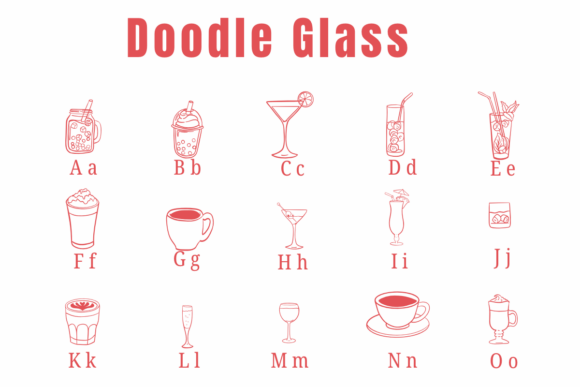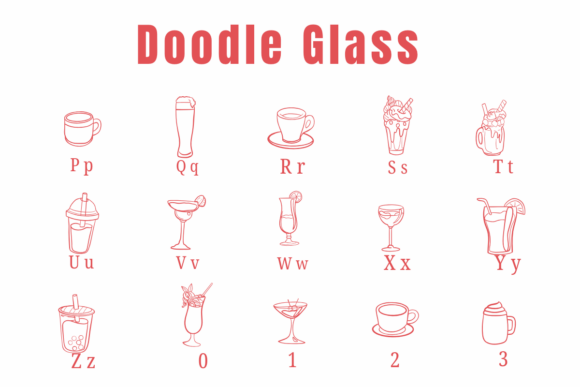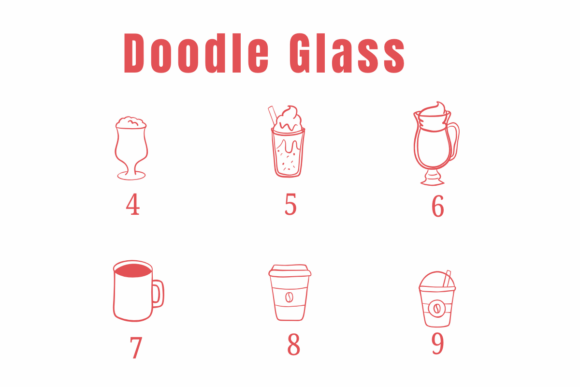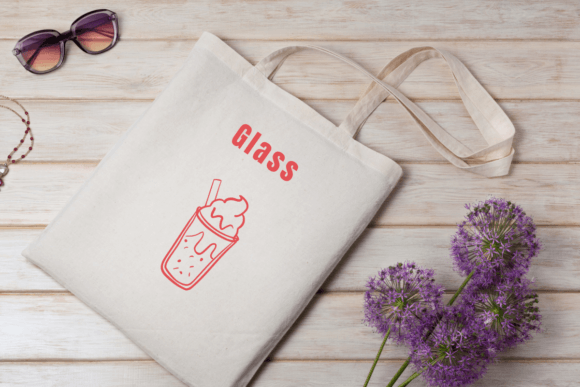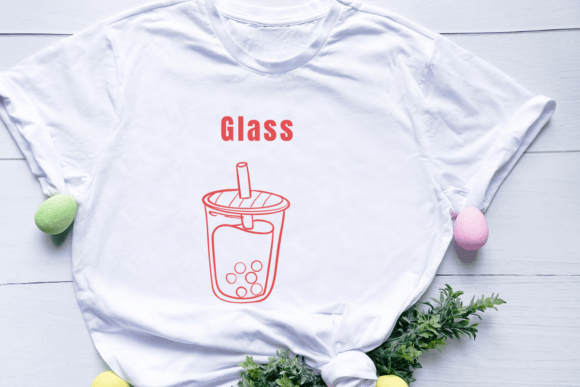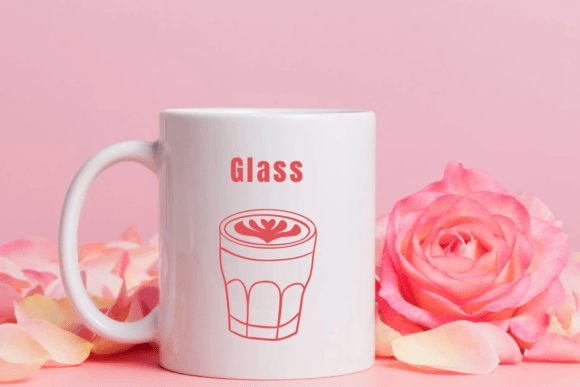
Introduction to Doodle Glass Font
Doodle Glass is a dingbats font with a cute theme.
This font can enhance your creative projects such as wedding invitations, DIY, crafts, decorations, logos, and many other creative ideas .
Key Features of Doodle Glass Font
Why Choose Doodle Glass Font?
Doodle Glass Font offers exceptional quality and versatility, making it a valuable addition to your design toolkit. Whether you’re creating for personal projects or commercial use, Doodle Glass Font delivers professional results.